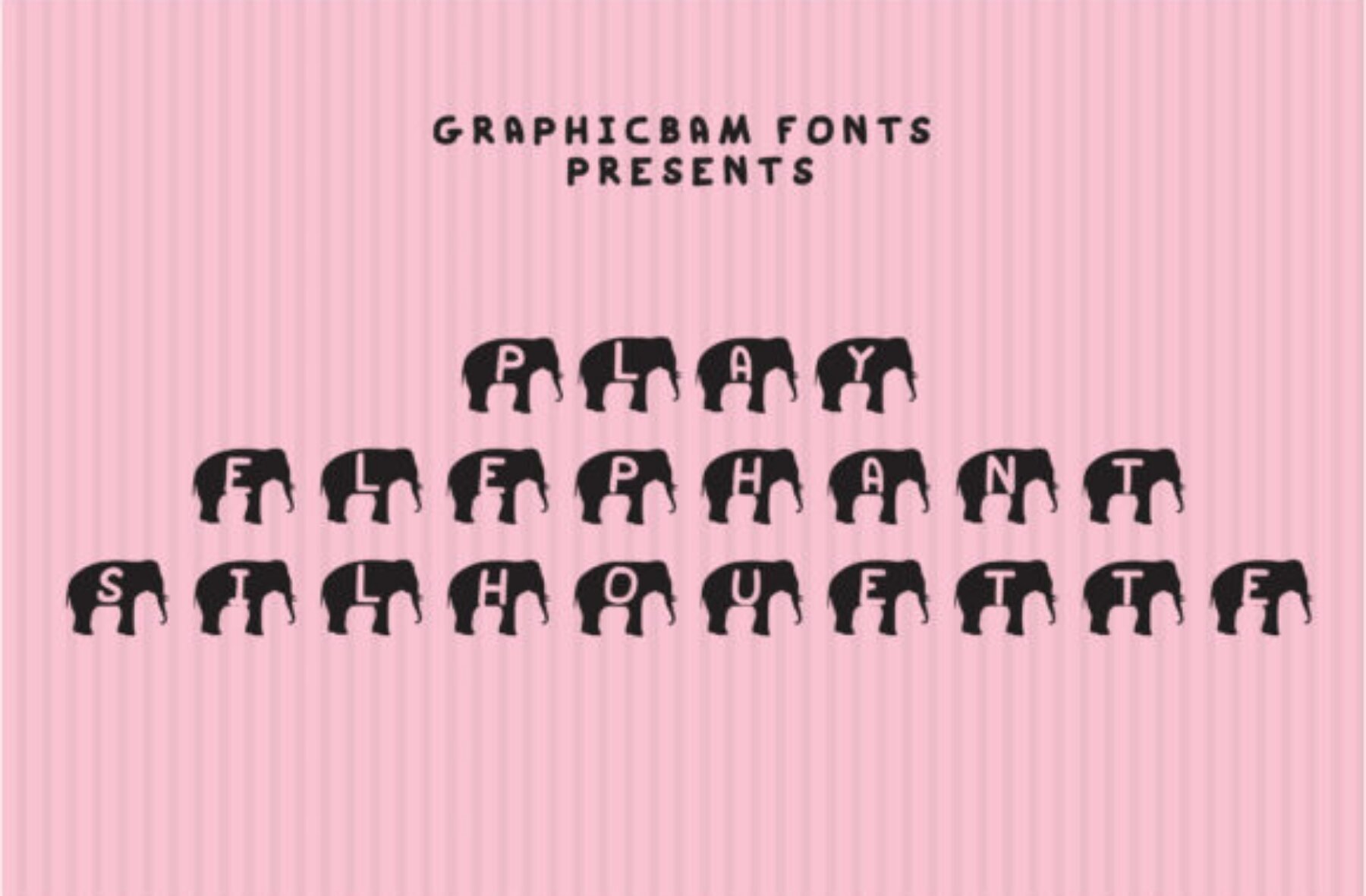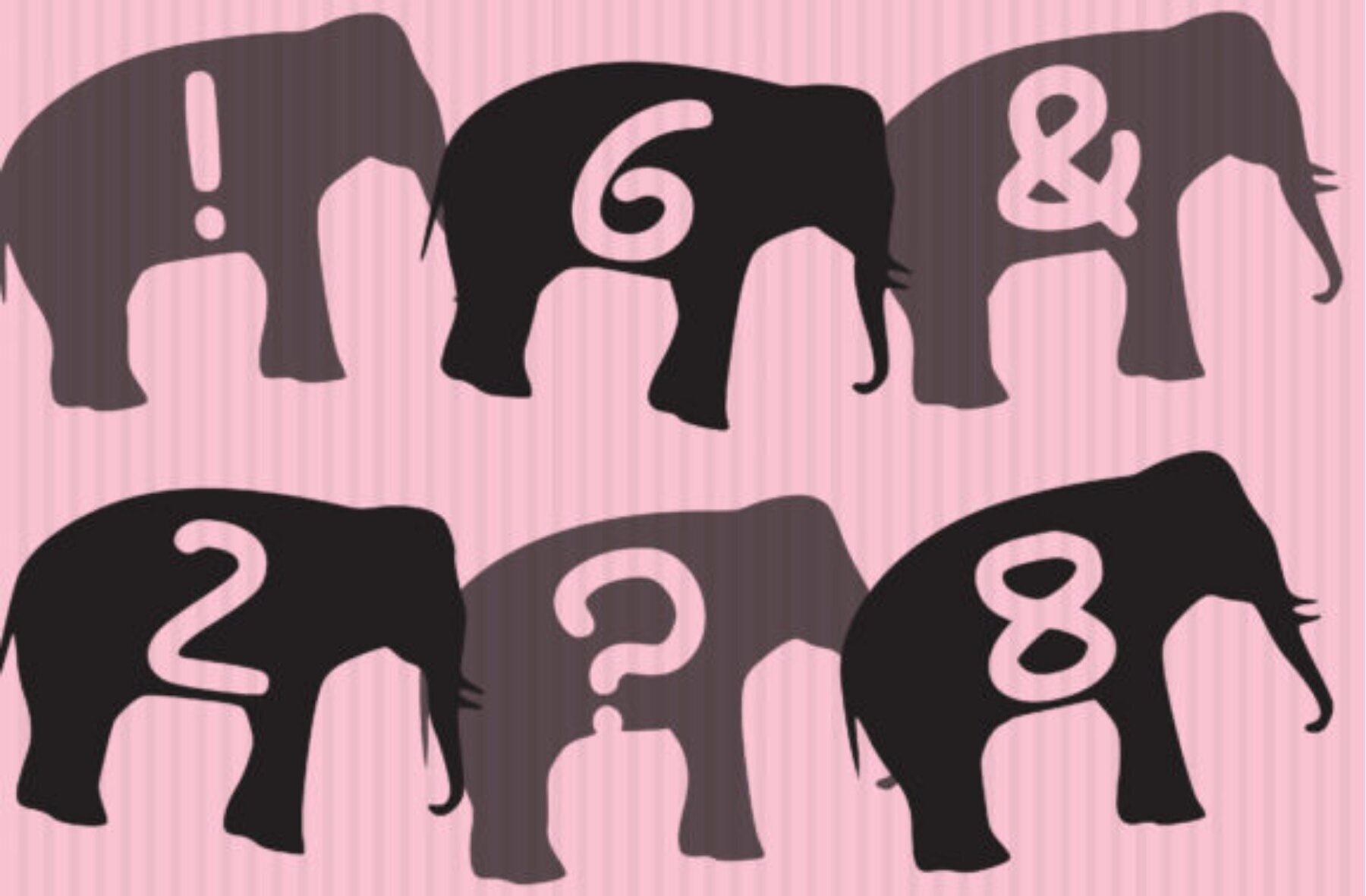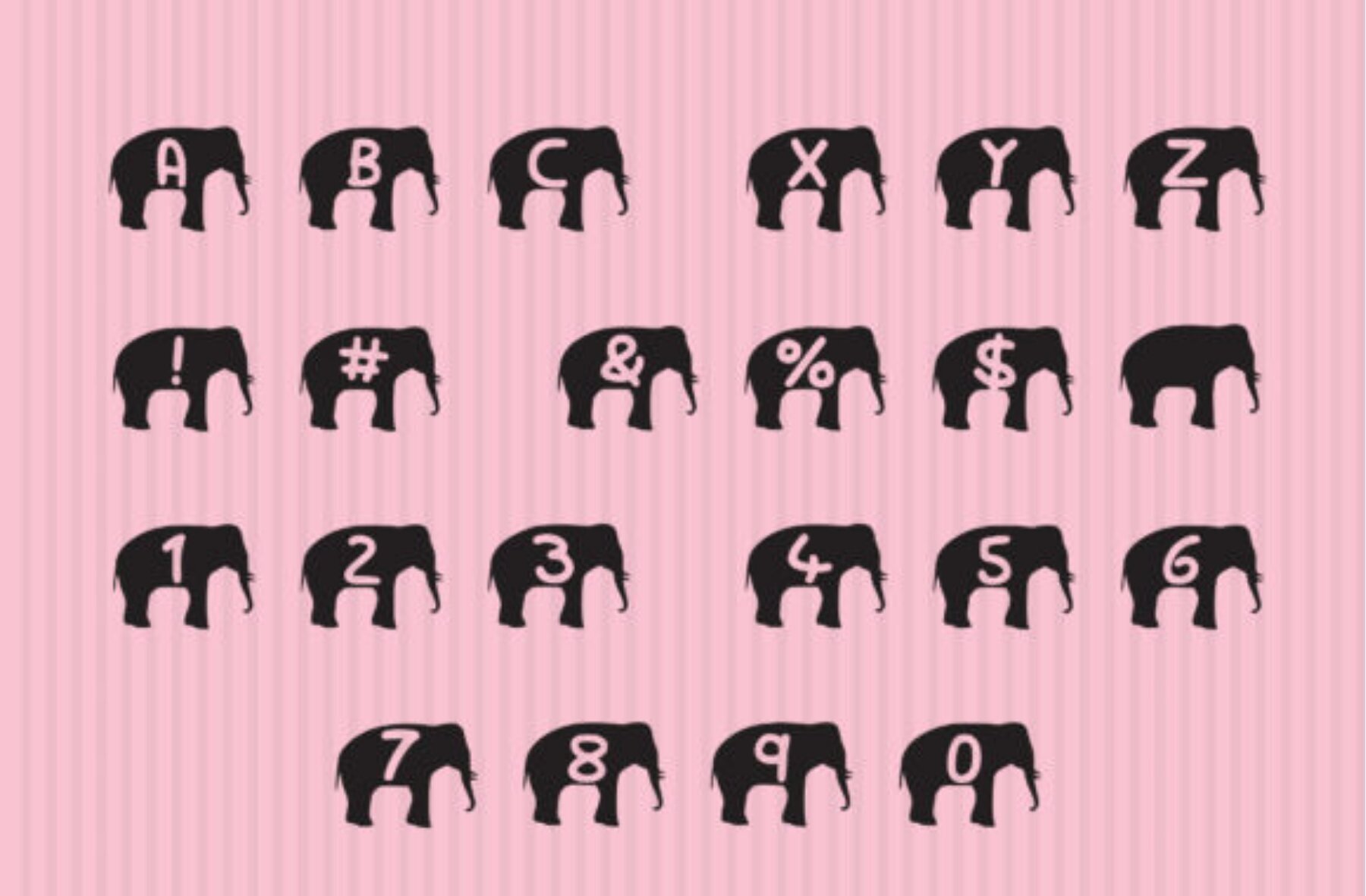
Play Elephant Silhouette
Discover the whimsy of Play Elephant Silhouette, a charming decorative font that brings joy to any child-focused project. This delightful typeface features adorable elephant silhouettes weaving through neatly rounded characters, adding a playful twist to your designs.Play Elephant Silhouette